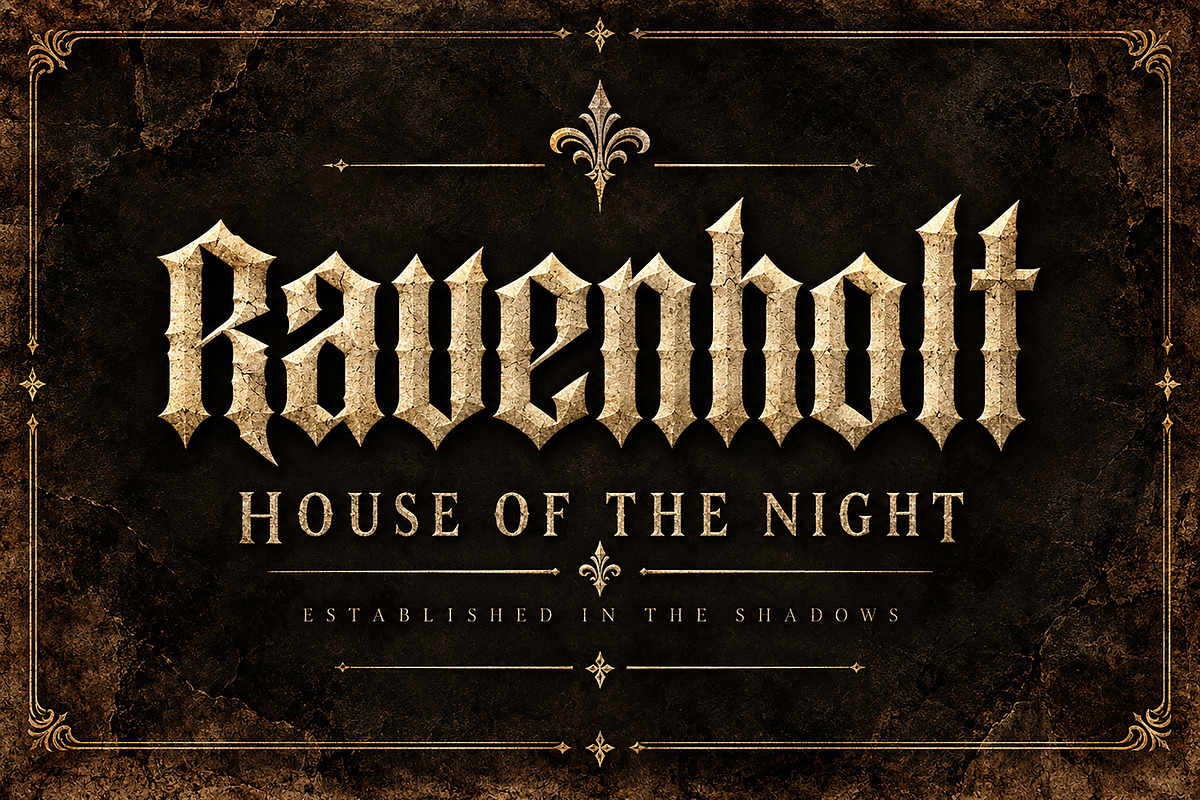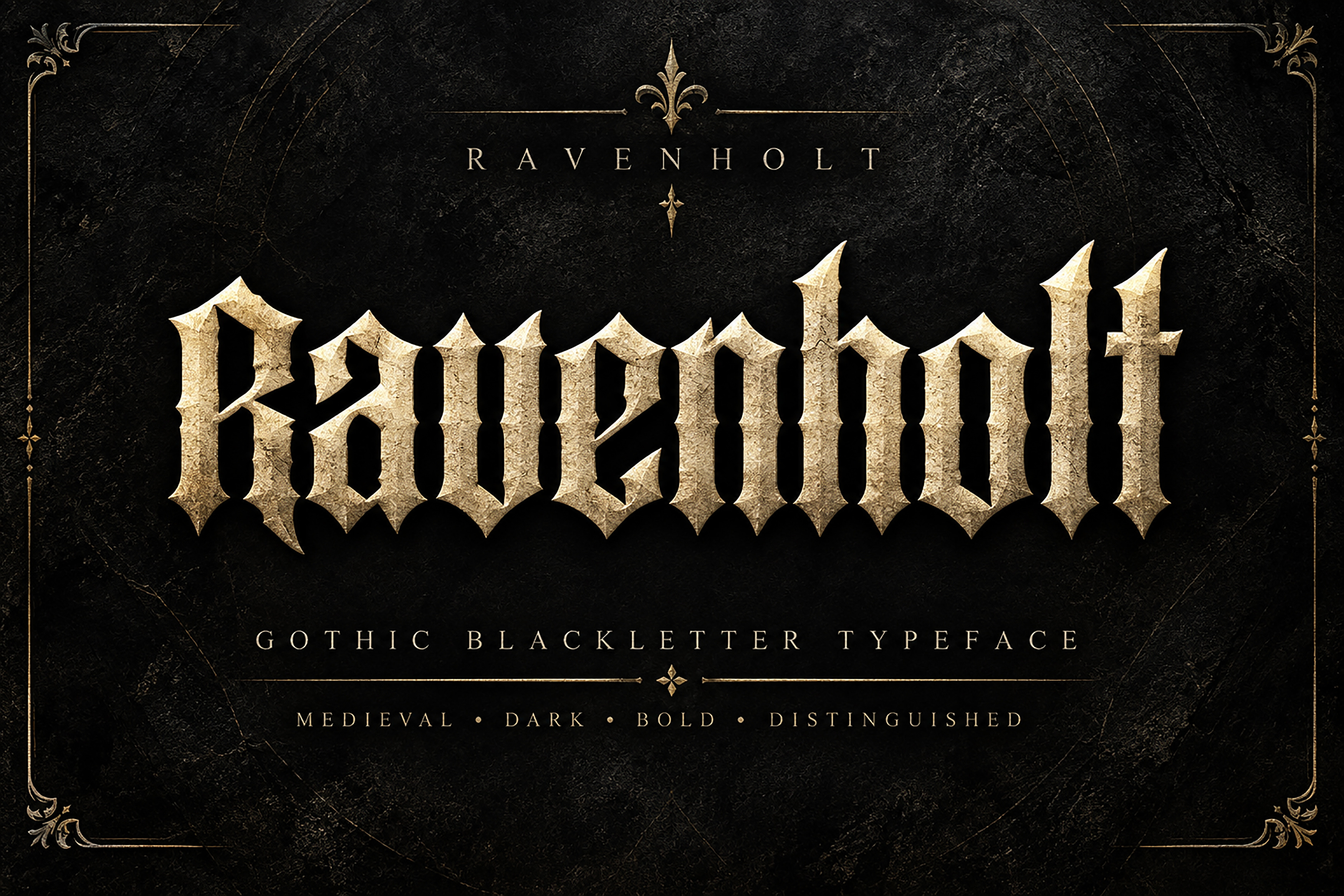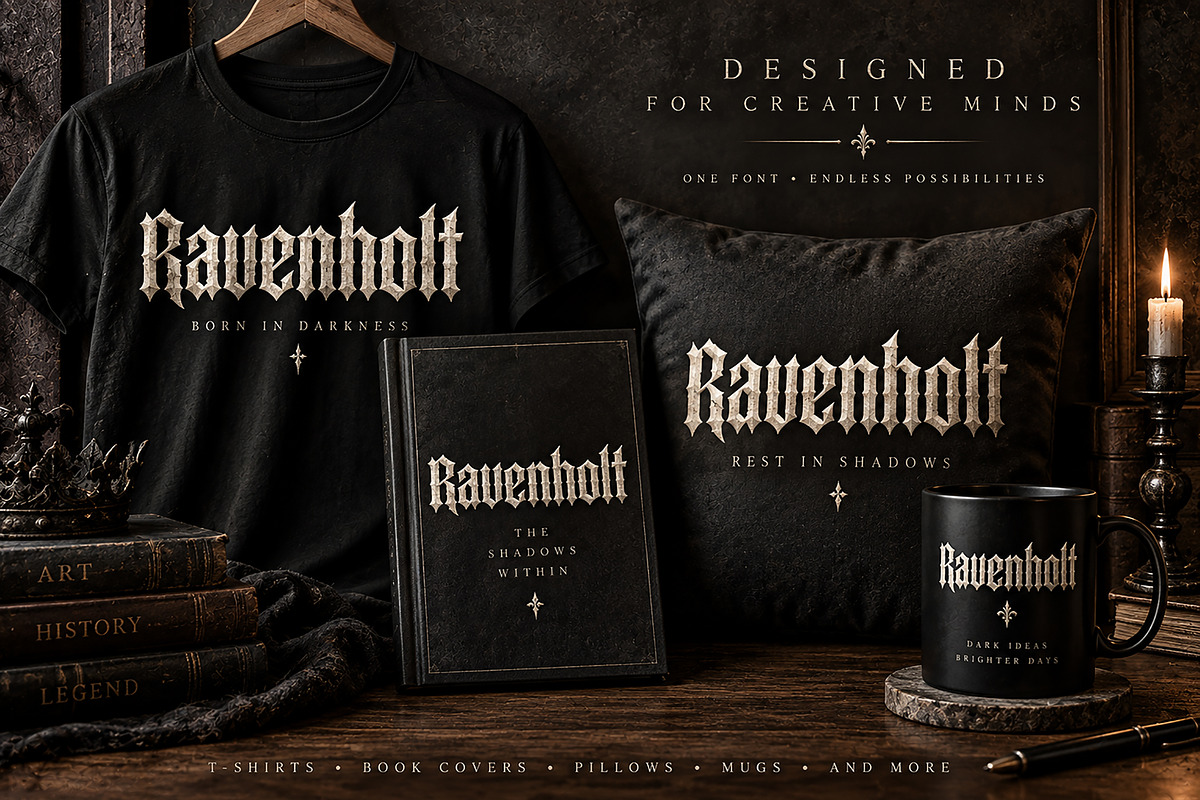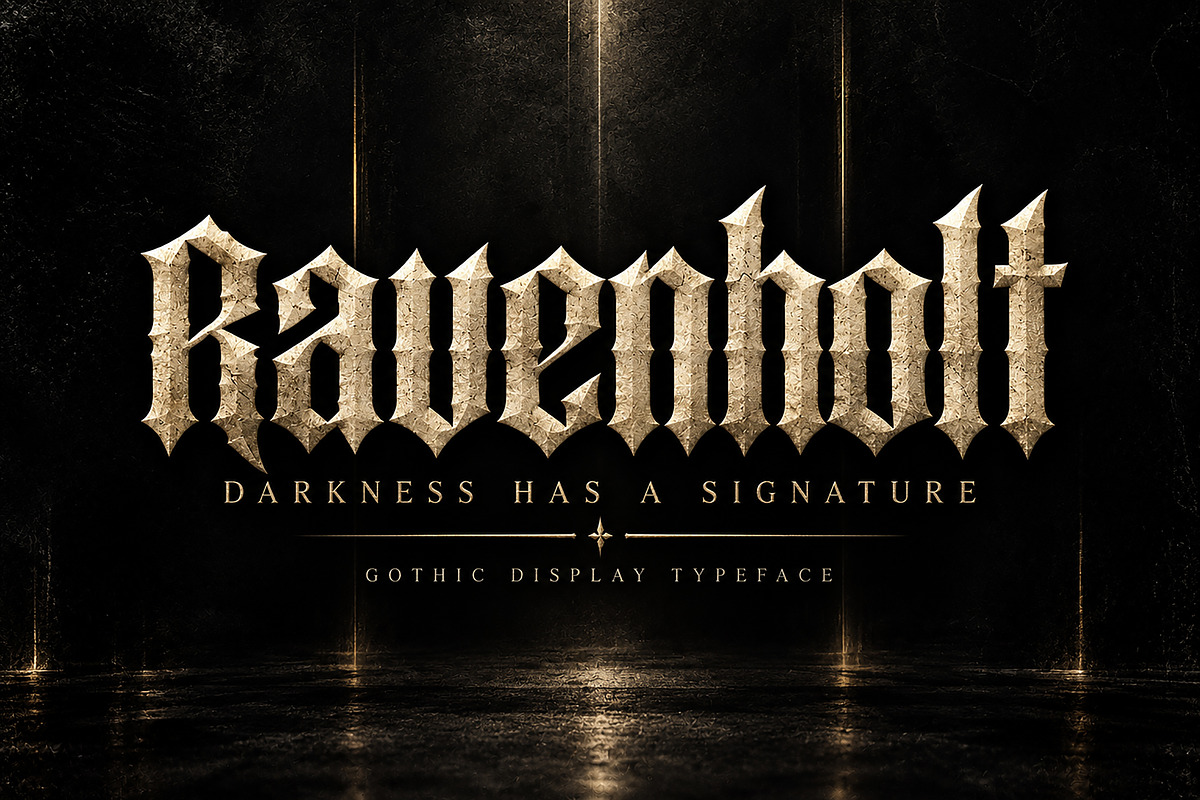
Ravenholt – Blackletter Typeface
Ravenholt – Gothic Blackletter Typeface
Ravenholt is a bold and distinctive Gothic Blackletter typeface inspired by medieval lettering, dark aesthetics, and timeless historical typography. Its sharp, dramatic letterforms give every word a powerful, mysterious, and commanding presence.
Designed for creators who want to add a strong Gothic character to their work, Ravenholt is perfect for logos, branding, apparel designs, T-shirt graphics, album artwork, posters, book covers, invitations, labels, packaging, merchandise, editorial designs, and more.
Its dark medieval personality makes it especially suitable for projects inspired by Gothic culture, medieval themes, fantasy aesthetics, tattoo artwork, metal and rock artwork, historical branding, dark fashion, and alternative design.
Whether you're creating a bold brand identity, striking headline, atmospheric poster, or memorable merchandise design, Ravenholt brings a powerful Blackletter aesthetic to your typography.
Gothic & Medieval Branding
Logos & Brand Identity
T-Shirt & Apparel Design
Album & Music Artwork
Posters & Flyers
Book & Cover Design
Fantasy & Historical Projects
Tattoo-Inspired Artwork
Packaging & Labels
Merchandise Design
Editorial Headlines
Invitations & Special Events
Font Name: Ravenholt
Style: Gothic / Blackletter / Medieval
Ravenholt is made for designers who want typography that feels dark, bold, historic, and unforgettable.